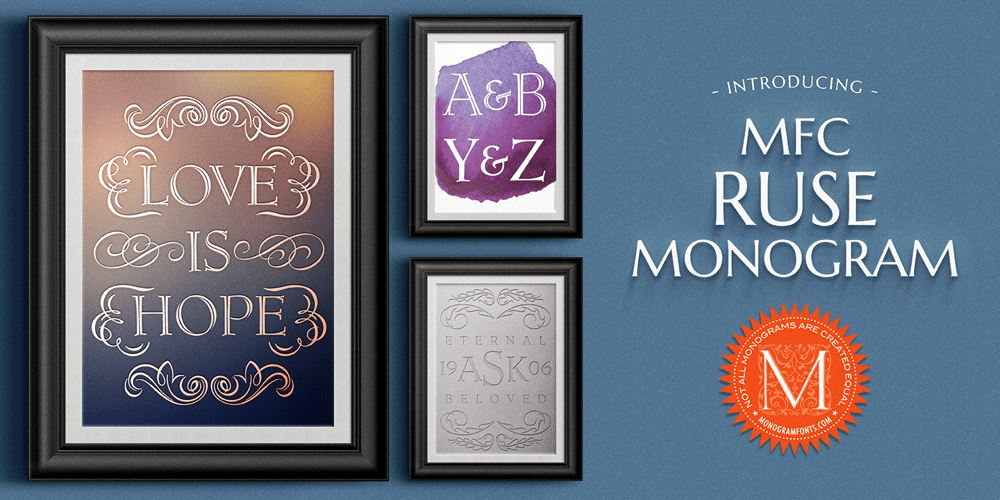
MFC Ruse Monogram Font Family was designed by Brian J. Bonislawsky and published by Monogram Fonts Co.. MFC Ruse Monogram contains 17 styles and family package options. The inspiration source for Ruse Monogram is a unique letterset called “DeRoos Inline” from an old type specimen tearsheet. To create more monogram versatility in the design, a solid version, as well as a scaled down numbering set and flourish ornamentation are also added to the font. Ruse Monogram is capable of several traditional monogram forms, in both solid and inline styles. Download and view the Ruse Monogram Guidebook if you would like to learn a little more. Ruse Monogram comes complete with both Pro and Standard format fonts. For those with programs that can take advantage of OpenType features, the Pro fonts are for you, but for others without the ability to use OpenType features, we’ve created separate fonts that make up the styles contained in the Pro font.